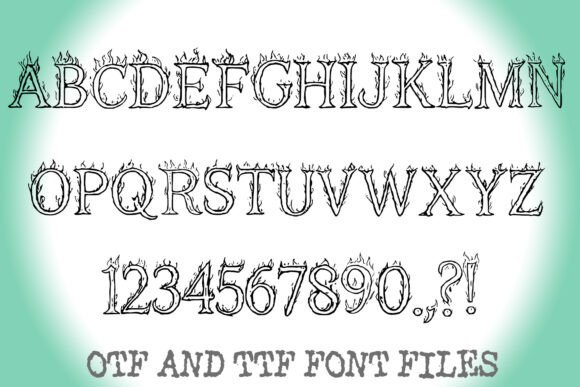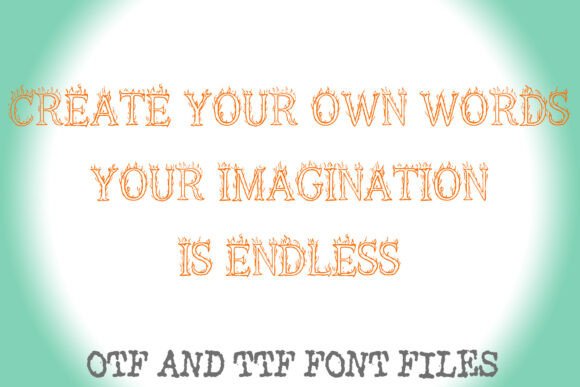
Ignite Your Designs with Fire and Flame Font
Are you looking for a font that can add a spark to your designs? Look no further than the Fire and Flame Alphabet Lettering ABC Text Font OTF. This explosive decorative font is sure to ignite your creative projects with its bold, stylized letters that appear to be engulfed in dynamic flames.
A Fiery Presence on the Page
The Fire and Flame Alphabet font is aptly named, with each character serving as a visual metaphor for intensity and power. The hand-drawn, illustrative quality of the font adds a raw, untamed personality that is sure to grab attention. The unique design balances a structured form with the chaotic energy of fire, making it a compelling choice for projects that demand a sense of urgency, excitement, or high-impact drama.
Perfect for High-Impact Designs
This font is a formidable tool for designers creating logos, posters, t-shirt graphics, and album art for brands in the rock music, extreme sports, or culinary industries, particularly those centered on spicy foods. The Fire and Flame Alphabet font offers a creative solution for any visual communication needing to convey heat, passion, or danger without sacrificing legibility at larger scales.
One of the standout features of the Fire and Flame Alphabet font is its versatility. Whether you’re designing a logo, poster, or social media graphic, this font can add a touch of excitement and energy to your project. Its bold, stylized letters are perfect for creating eye-catching headlines, titles, and captions that demand attention.
Key Features of Fire and Flame Font
- Bold, stylized letters: Each character is designed to appear as if it’s engulfed in dynamic flames, adding a touch of intensity and power to your designs.
- Hand-drawn, illustrative quality: The font features a raw, untamed personality that adds a creative touch to your projects.
- Balanced design: The structured form of the font is balanced with the chaotic energy of fire, making it perfect for projects that demand a sense of urgency or excitement.
- Legible at larger scales: The font remains clear and legible even at larger sizes, making it perfect for posters, billboards, and other high-impact designs.
Industries That Can Benefit from Fire and Flame Font
The Fire and Flame Alphabet font is perfect for a variety of industries that require a bold, attention-grabbing font. Some of the industries that can benefit from this font include:
- Rock music: The font’s bold, stylized letters are perfect for creating album art, posters, and other promotional materials for rock bands.
- Extreme sports: The font’s dynamic, high-energy design makes it perfect for creating logos, posters, and other promotional materials for extreme sports brands.
- Culinary: The font’s fiery design makes it perfect for creating logos, menus, and other promotional materials for restaurants and food brands that specialize in spicy foods.
Tips for Using Fire and Flame Font
Here are a few tips for using the Fire and Flame Alphabet font in your designs:
- Use it sparingly: While the font is bold and attention-grabbing, it can be overwhelming if used excessively. Use it sparingly to add a touch of excitement and energy to your designs.
- Pair it with a neutral font: Pair the Fire and Flame Alphabet font with a neutral font to create a balanced design. This will help to ensure that your message is clear and easy to read.
- Experiment with colors: The font looks great in bold, bright colors. Experiment with different colors to find the one that works best for your design.
The Fire and Flame Alphabet font is a powerful tool for designers looking to add a touch of excitement and energy to their projects. Its bold, stylized letters and hand-drawn, illustrative quality make it perfect for creating high-impact designs that demand attention. Whether you’re designing a logo, poster, or social media graphic, this font is sure to ignite your creative projects and leave a lasting impression on your audience.